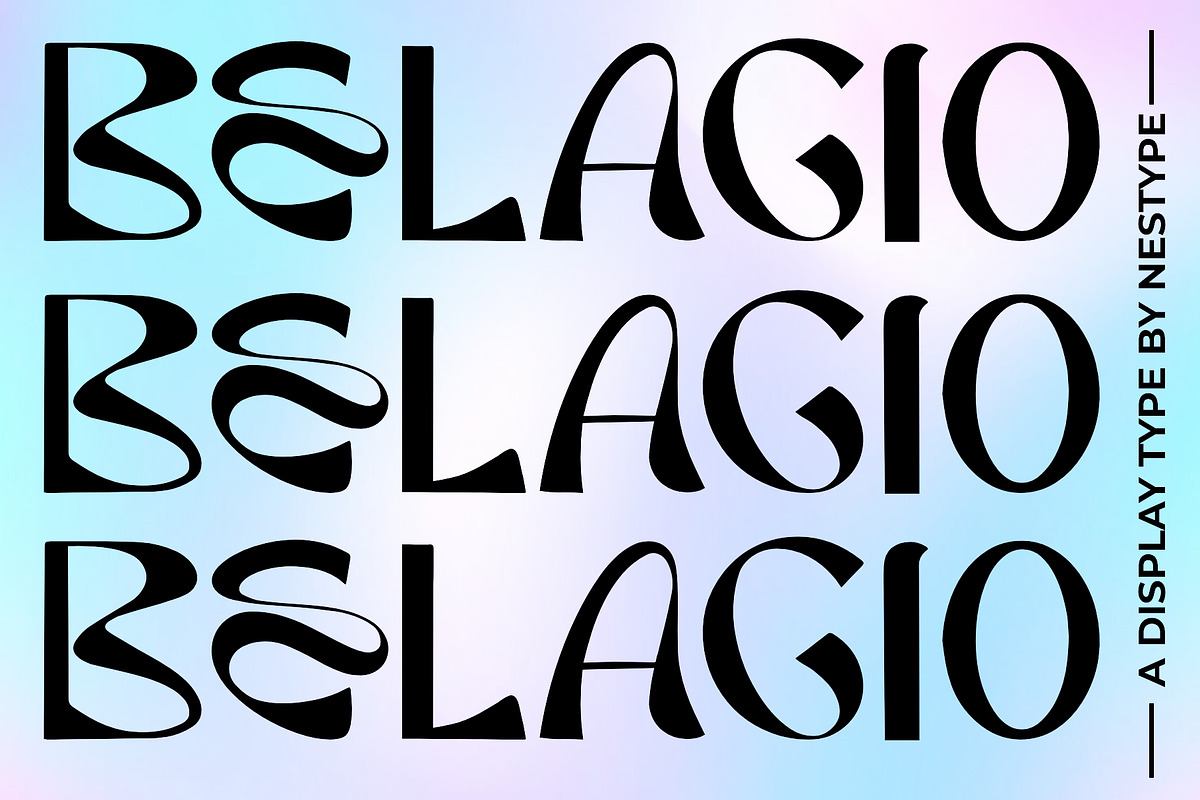
Belagio A Display Font Free Download
Belagio – A Display Font Free Download is a bold and stylish typeface designed to add flair and sophistication to your headlines and branding. With its elegant curves, unique character shapes, and fashion-forward vibe, Belagio is perfect for luxury logos, magazine covers, posters, product packaging, and upscale social media graphics.
This font combines modern aesthetics with a high-end feel, making it ideal for projects that require both impact and elegance. Whether you're creating visual identities or promotional content, Belagio delivers strong visual presence and timeless style.